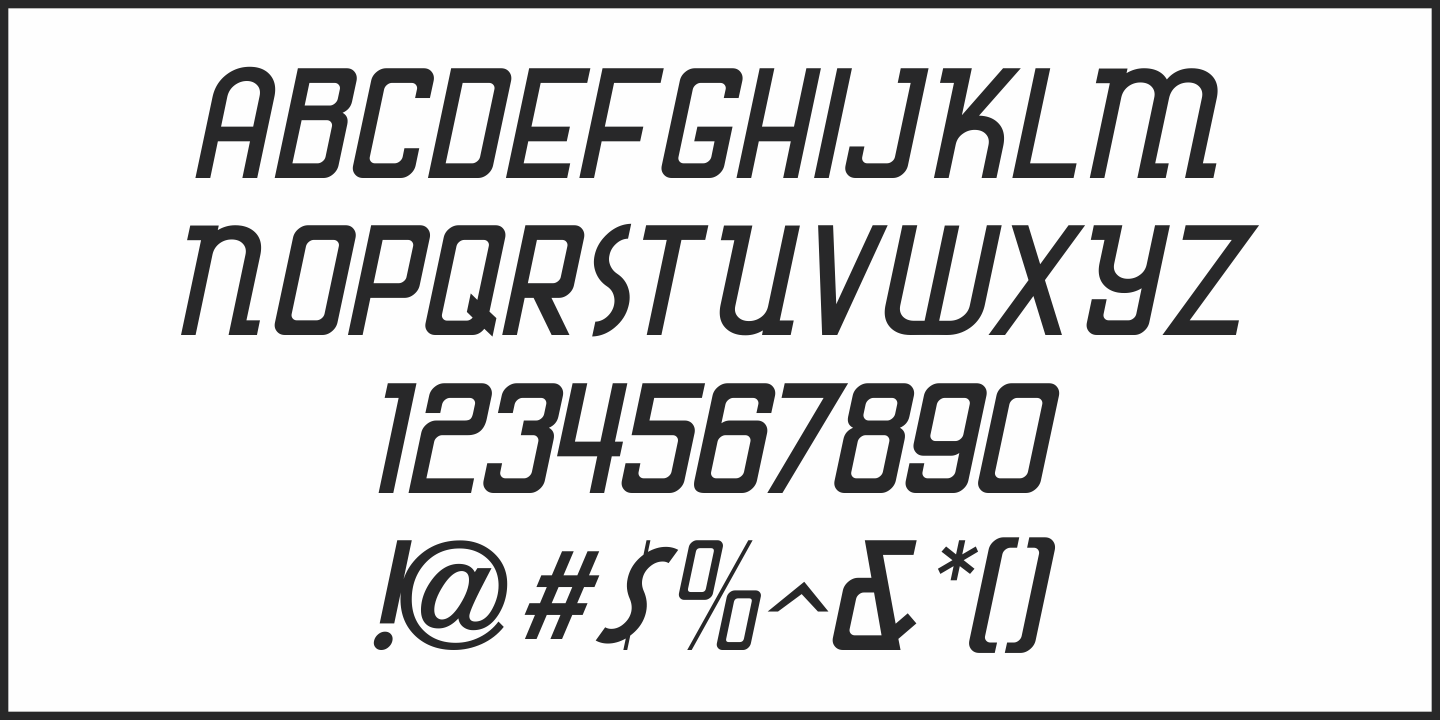
Hybrid Deco
Squared letters with rounded corners – Deco stylized letter forms – some characters with ‘hook’ semi-serifs – such is the mixed styles that comprise the hand lettered title “United We Stand” on a 1940s-era piece of sheet music.
This unusual conglomeration of character shapes inspired the aptly named Hybrid Deco JNL, which is available in both regular and oblique versions.